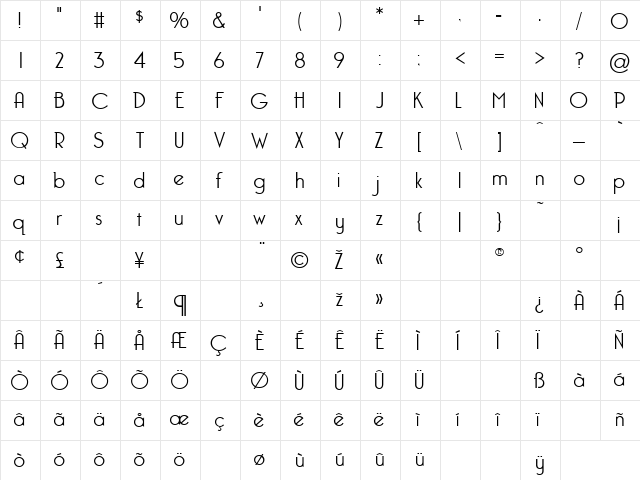
Capone Light Regular Font Preview
Capone Light Regular
Design Context for Capone Light Typeface
Capone Light takes a measured approach to typography — its balanced proportions and neutral character make it a reliable workhorse for both digital and print work. Its slender proportions lend an understated elegance to any composition.